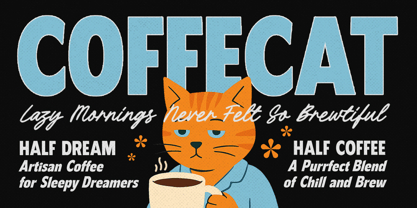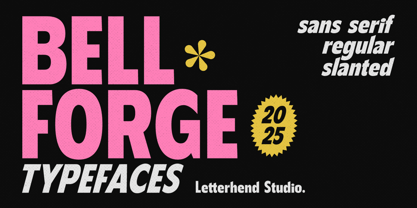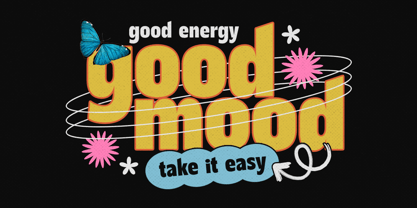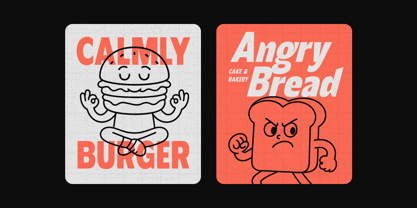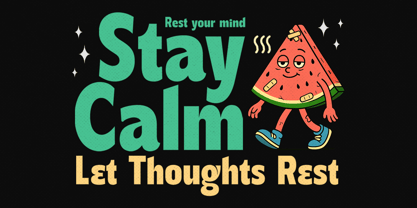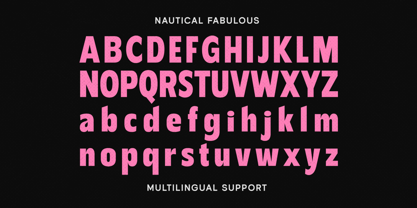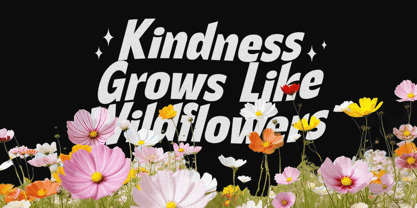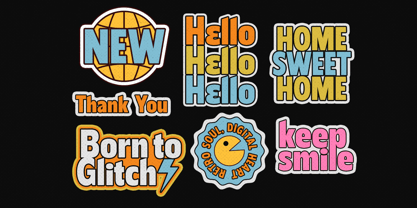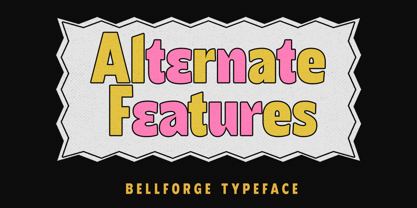
Bellforge
by Letterhend
The Bellforge Font Family was designed by Hendry Juanda and published by Letterhend. Bellforge contains 2 styles and family package options. More about this family
Bellforge is a bold sans serif typeface that blends modern clarity with strong vintage undertones. Its thick, geometric letterforms and clean edges make it perfect for headlines, posters, branding, and editorial layouts that demand attention. Features :Uppercase & lowercase, Numbers and punctuation, Alternates & Ligatures, Multilingual Support & PUA encoded